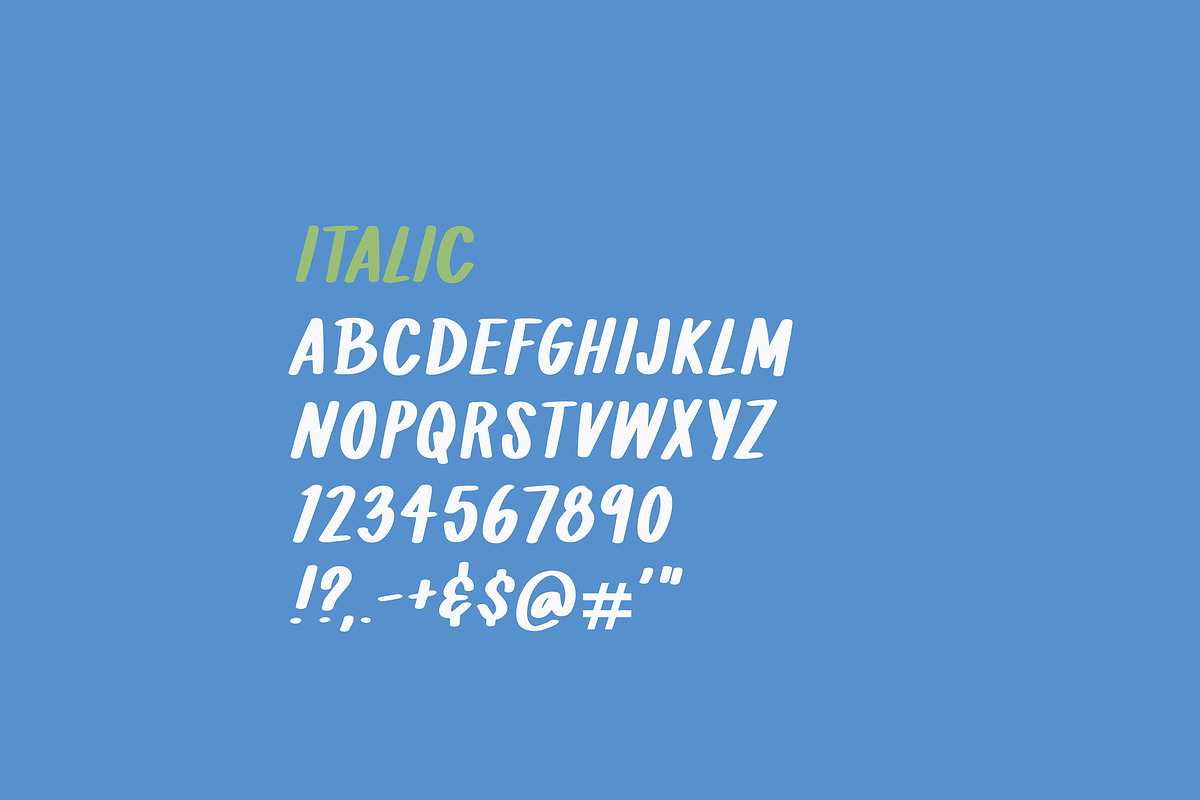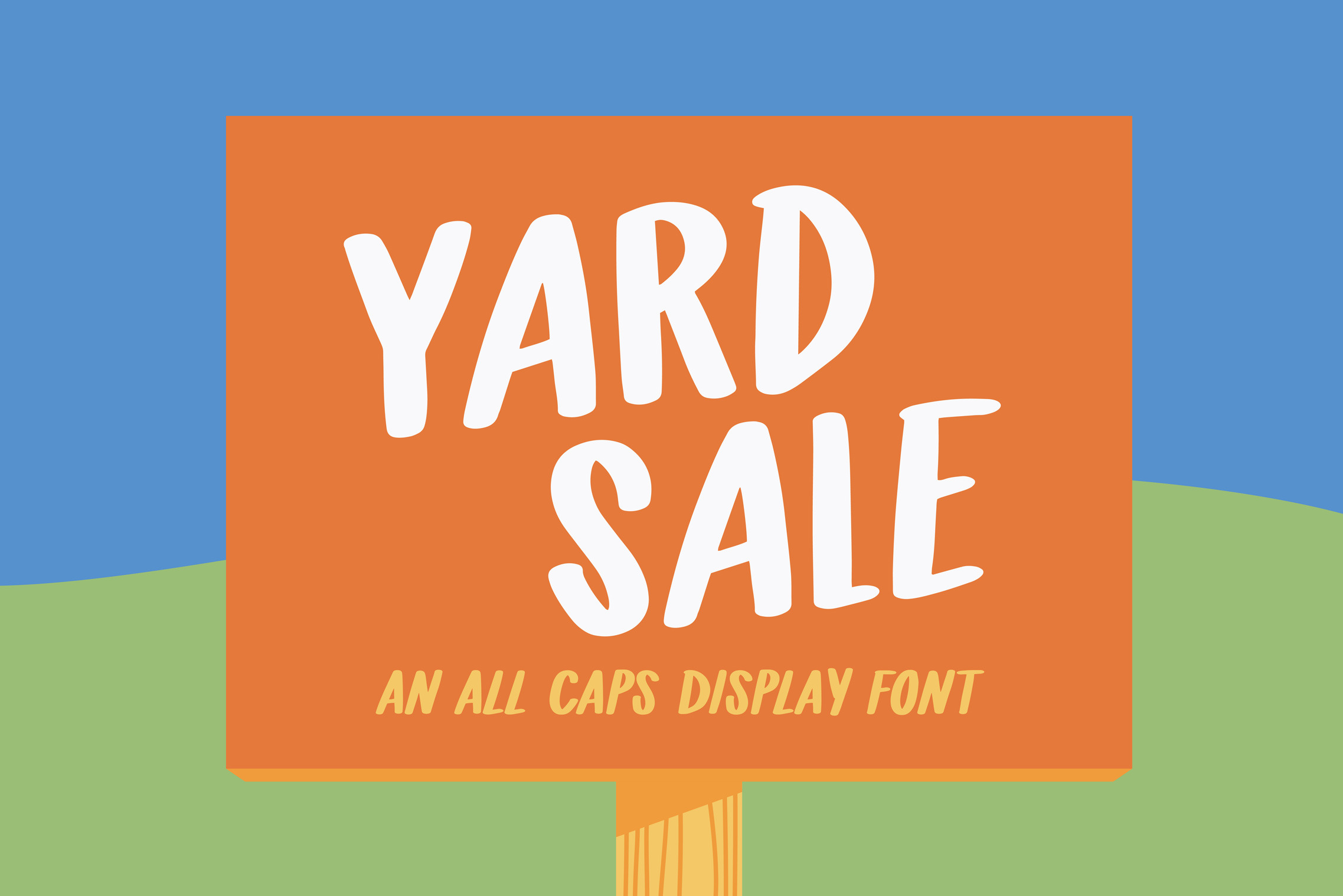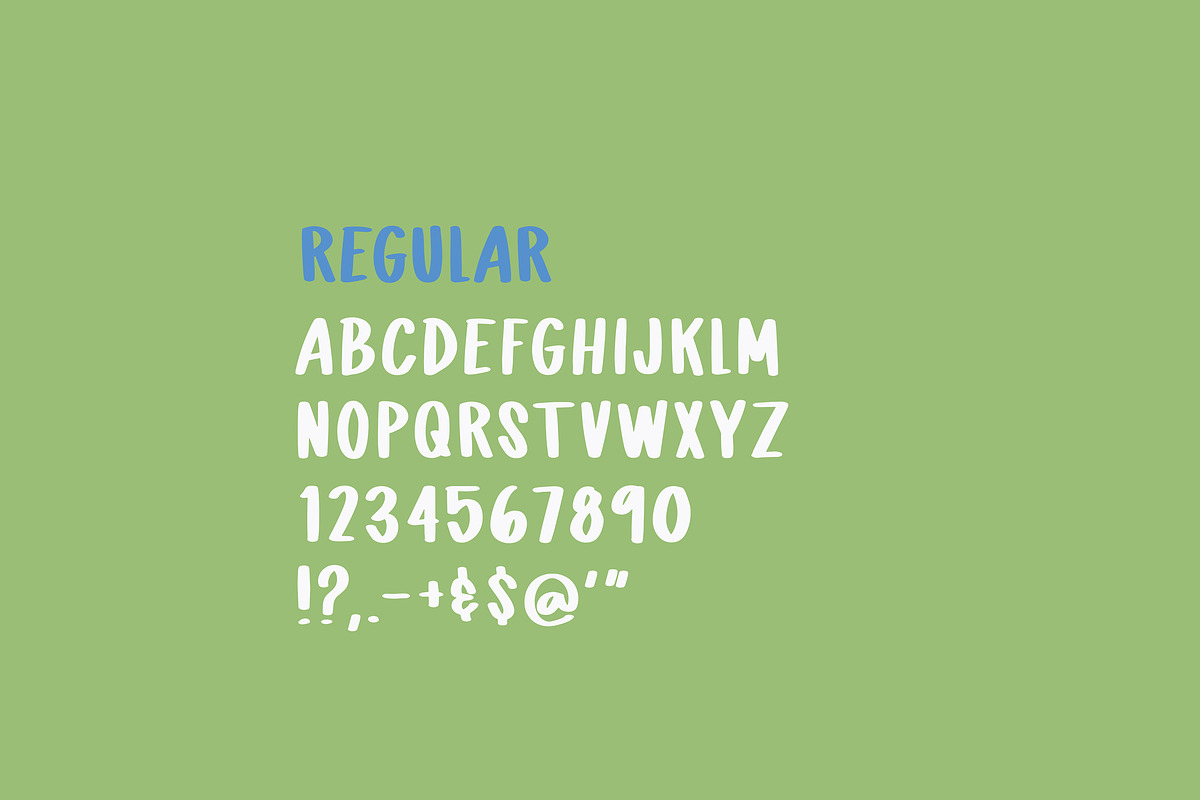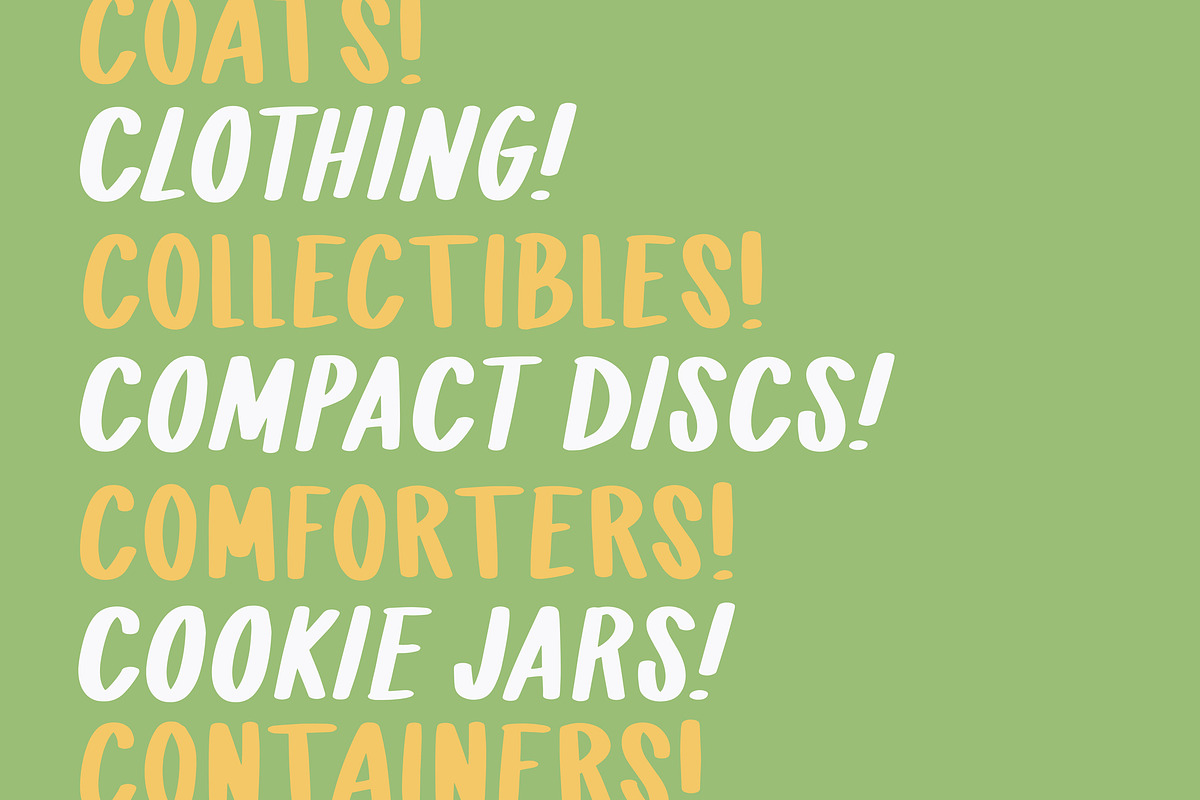
Yard Sale - Handwritten Display Font
Yard Sale is the display font you need when you want something that feels handwritten, but handwritten with a big chunky marker. Comes in two different weights - regular and italic.